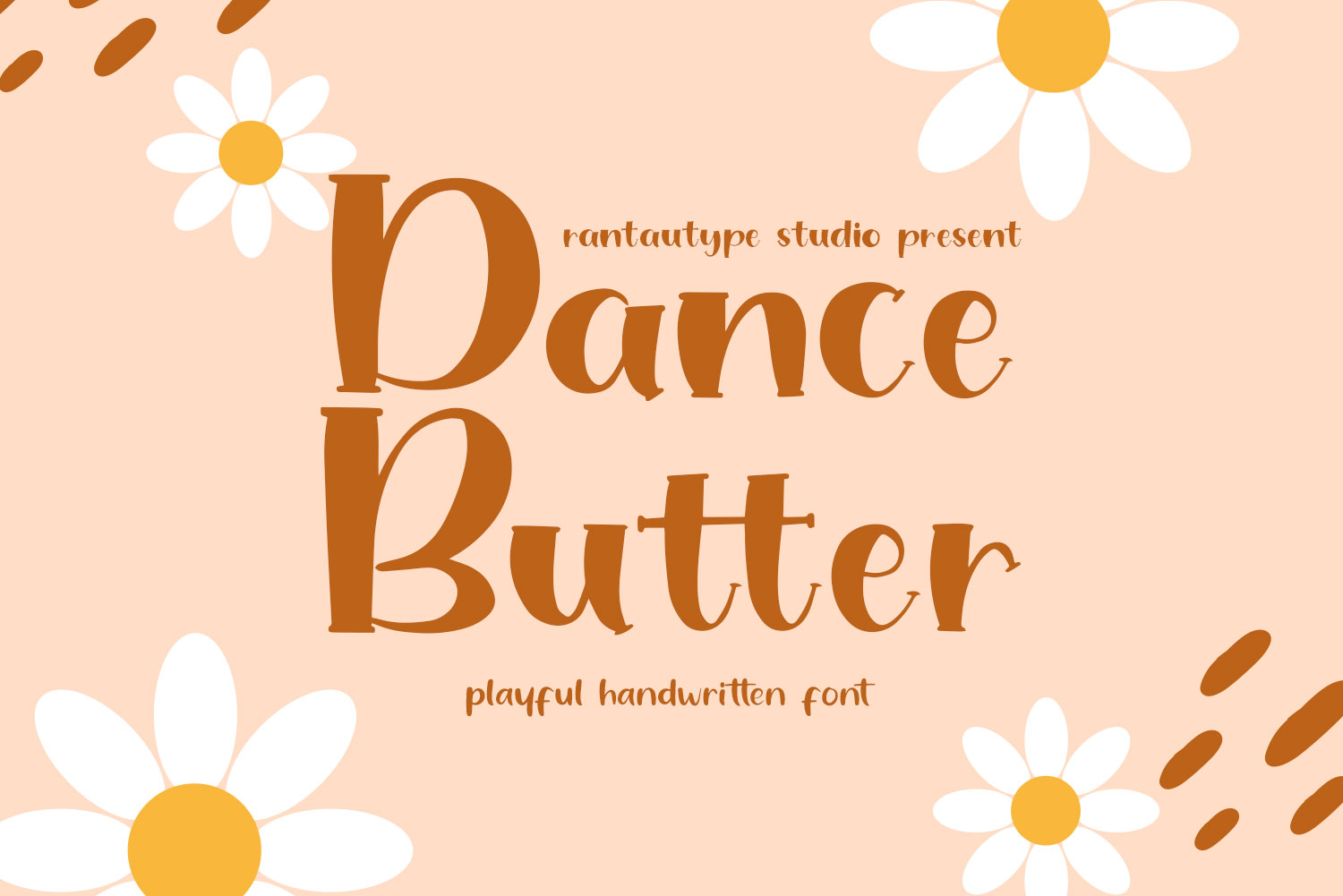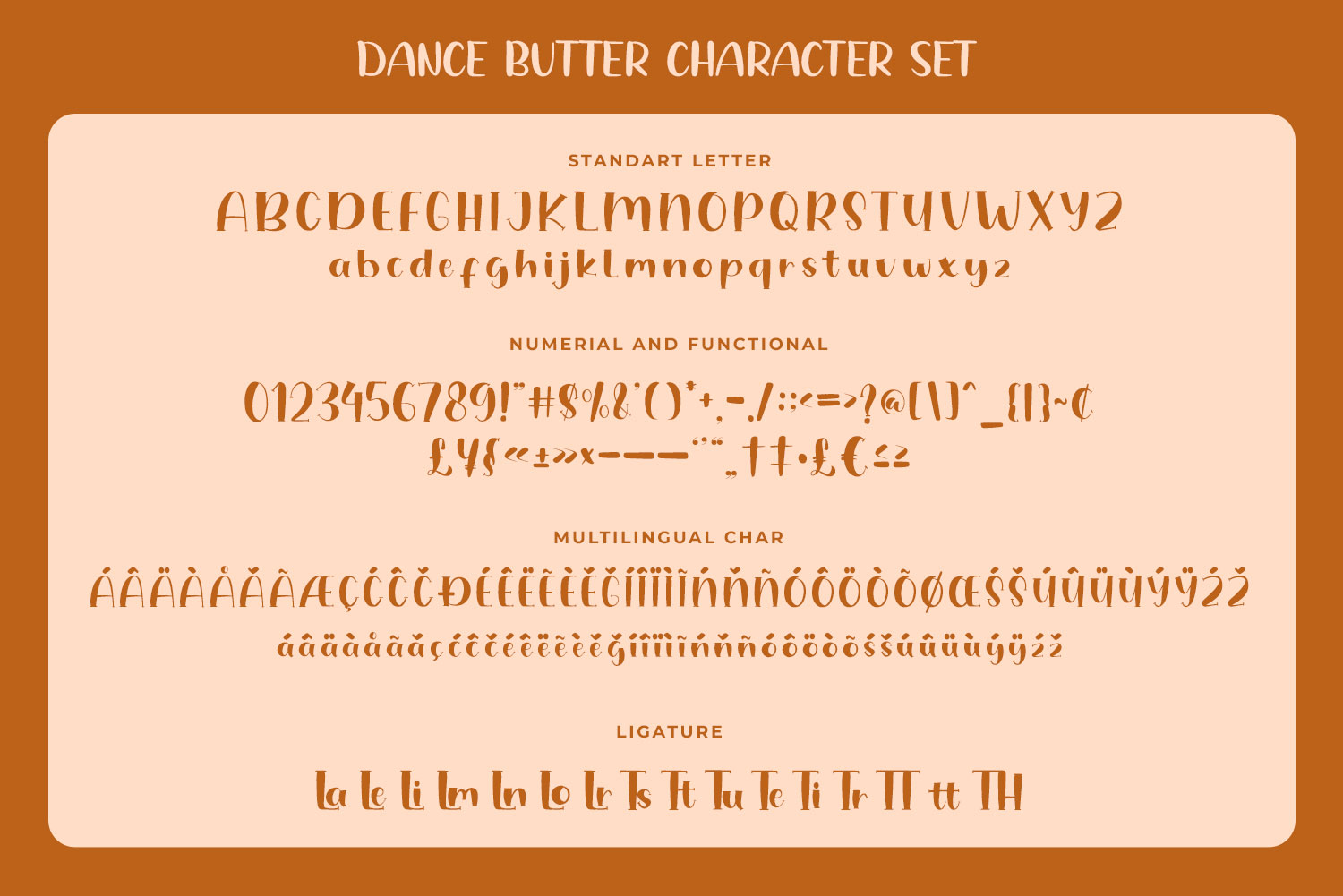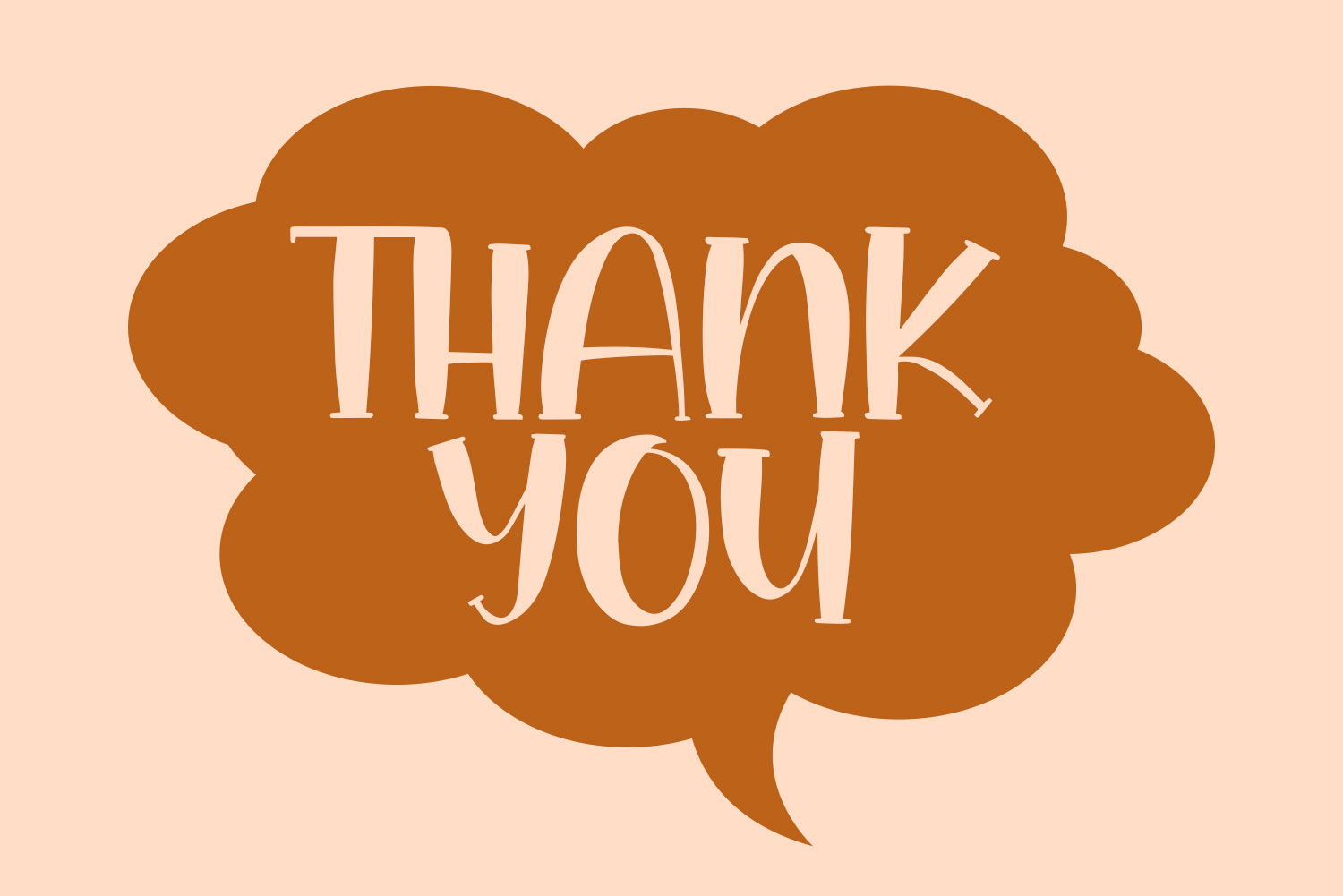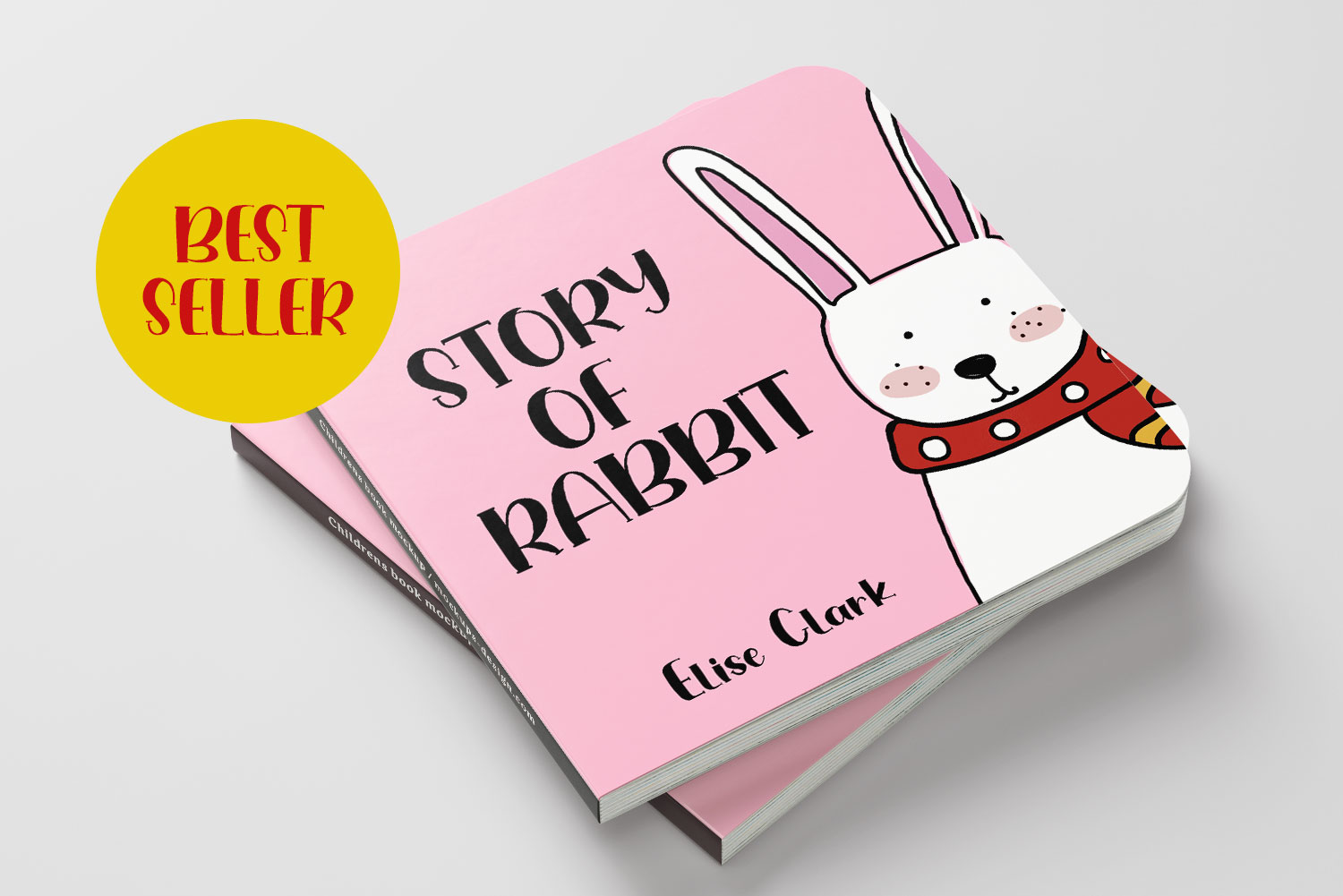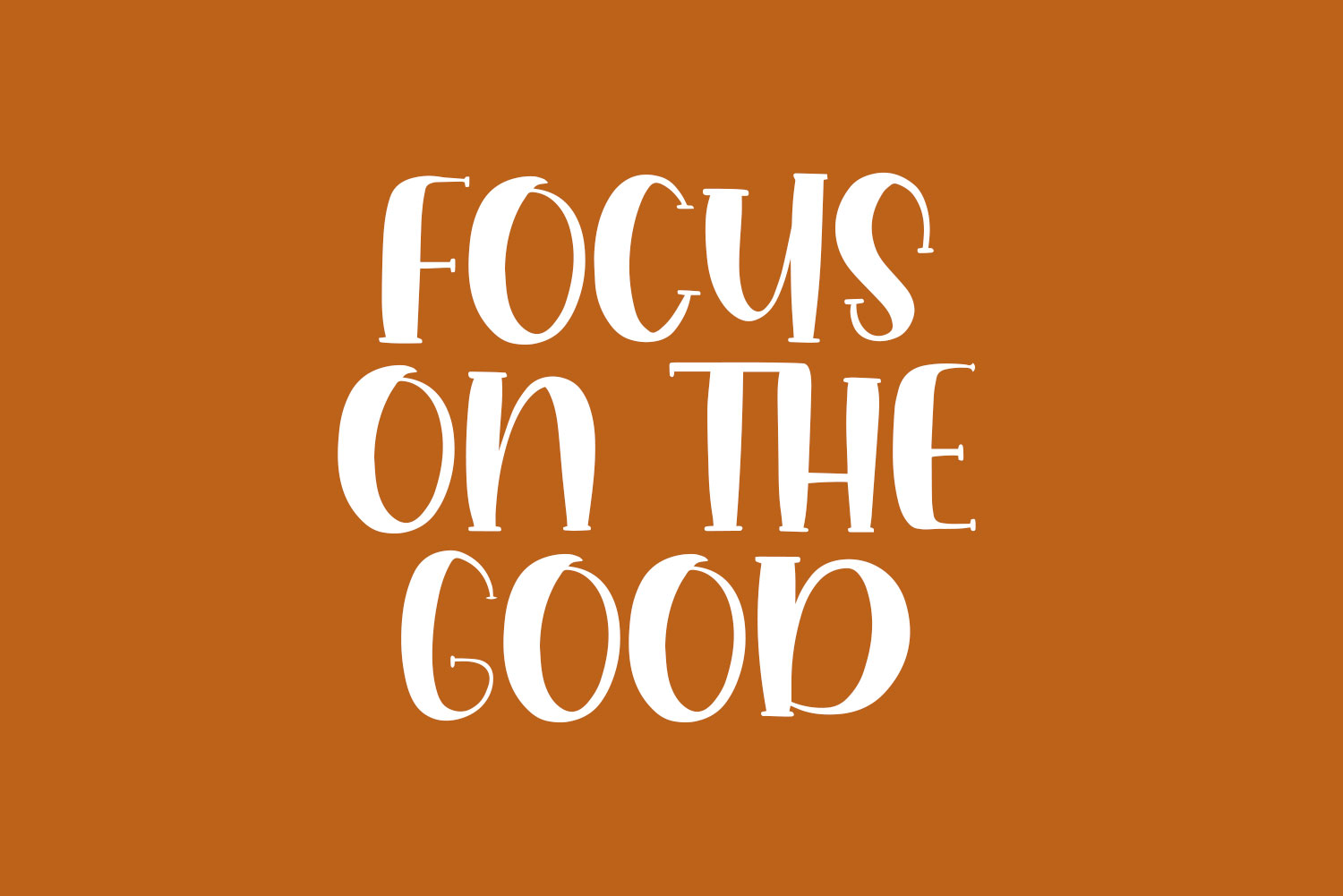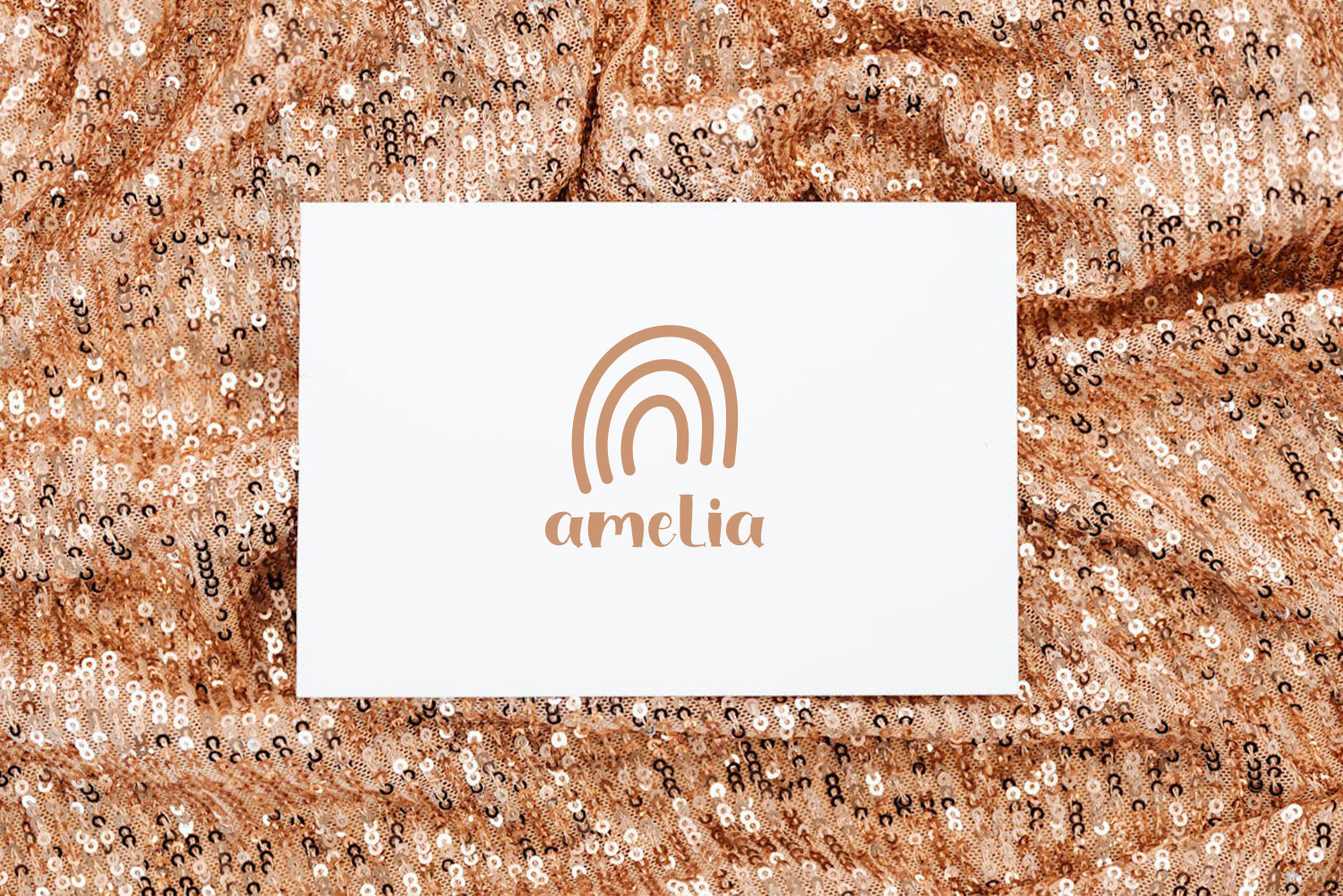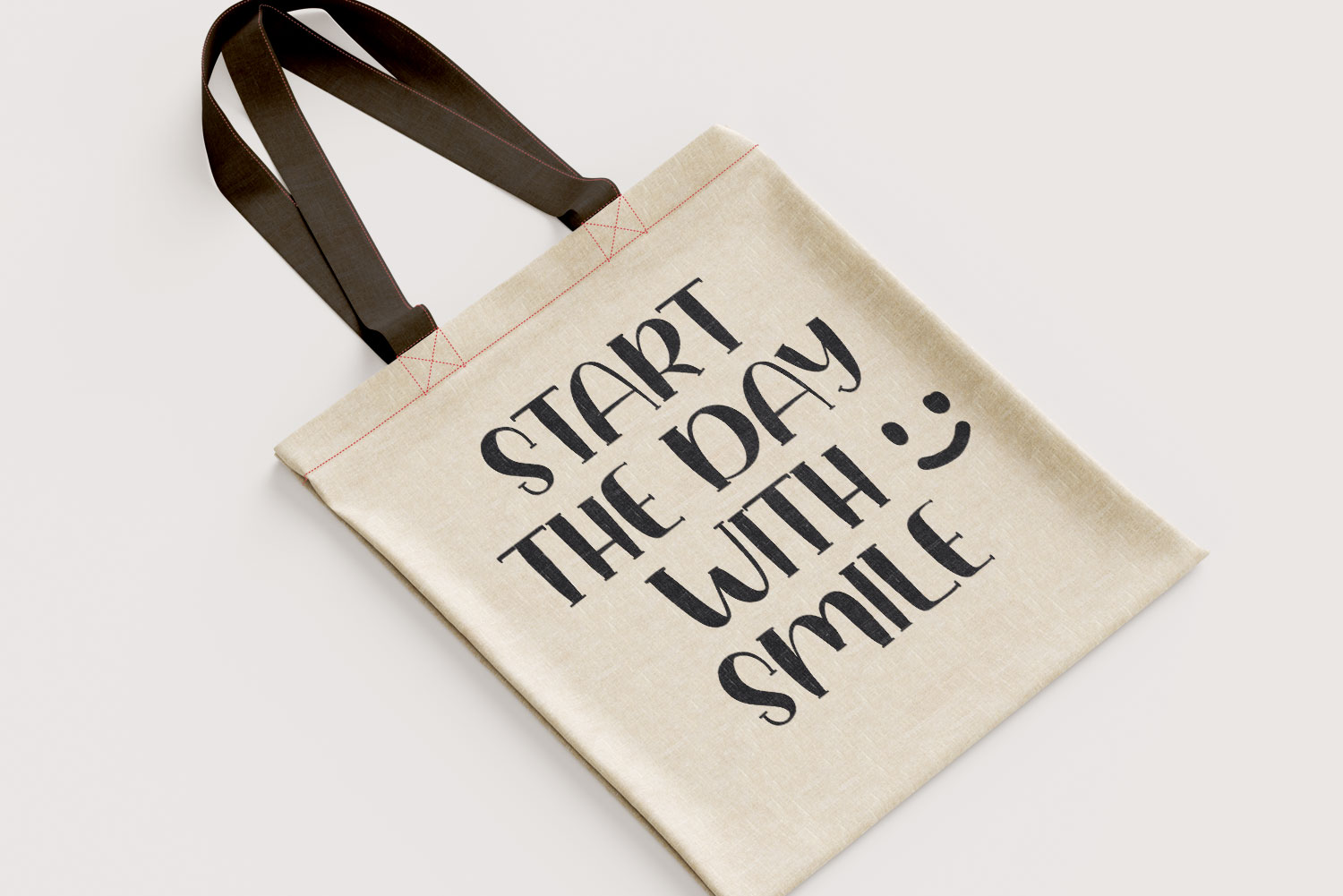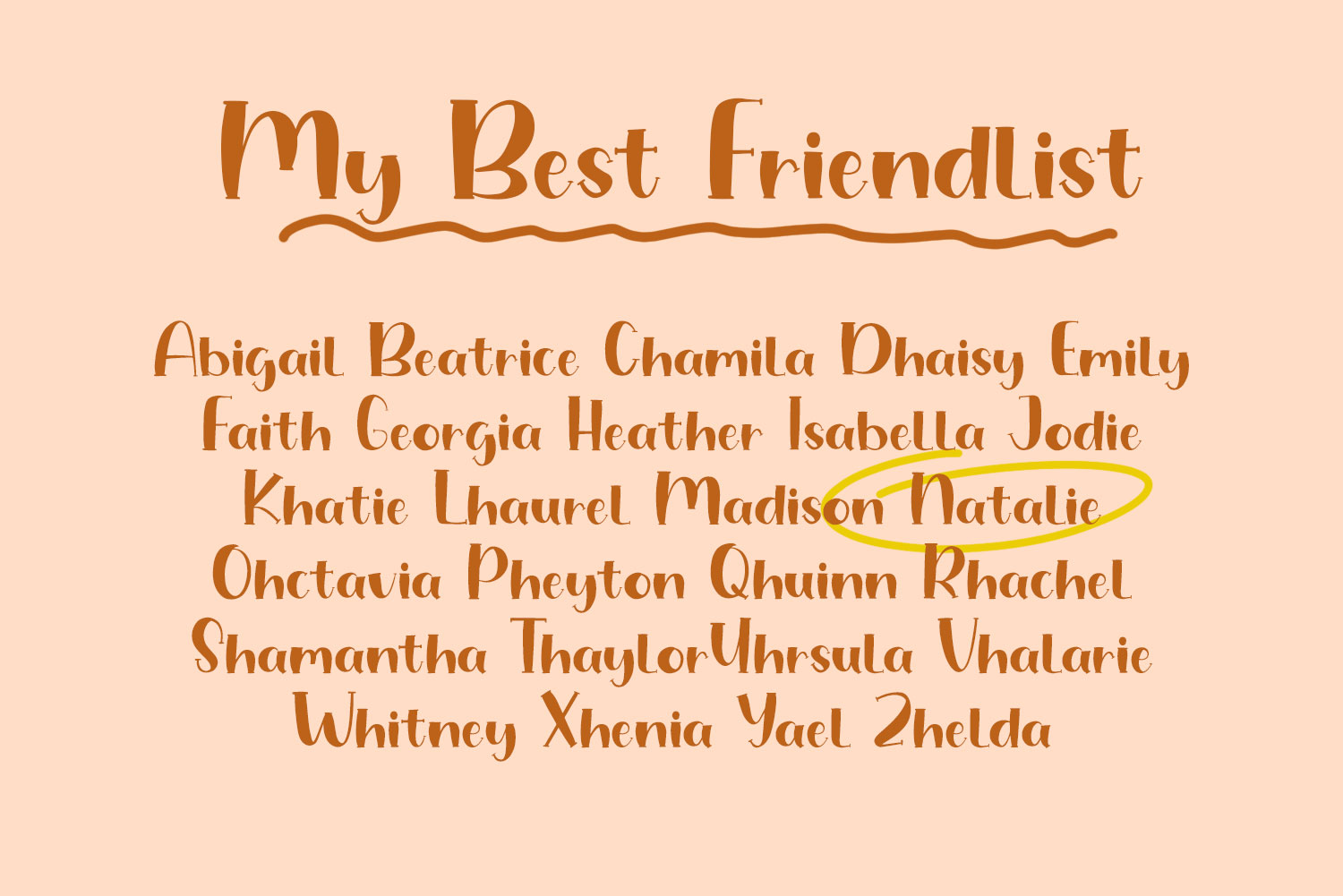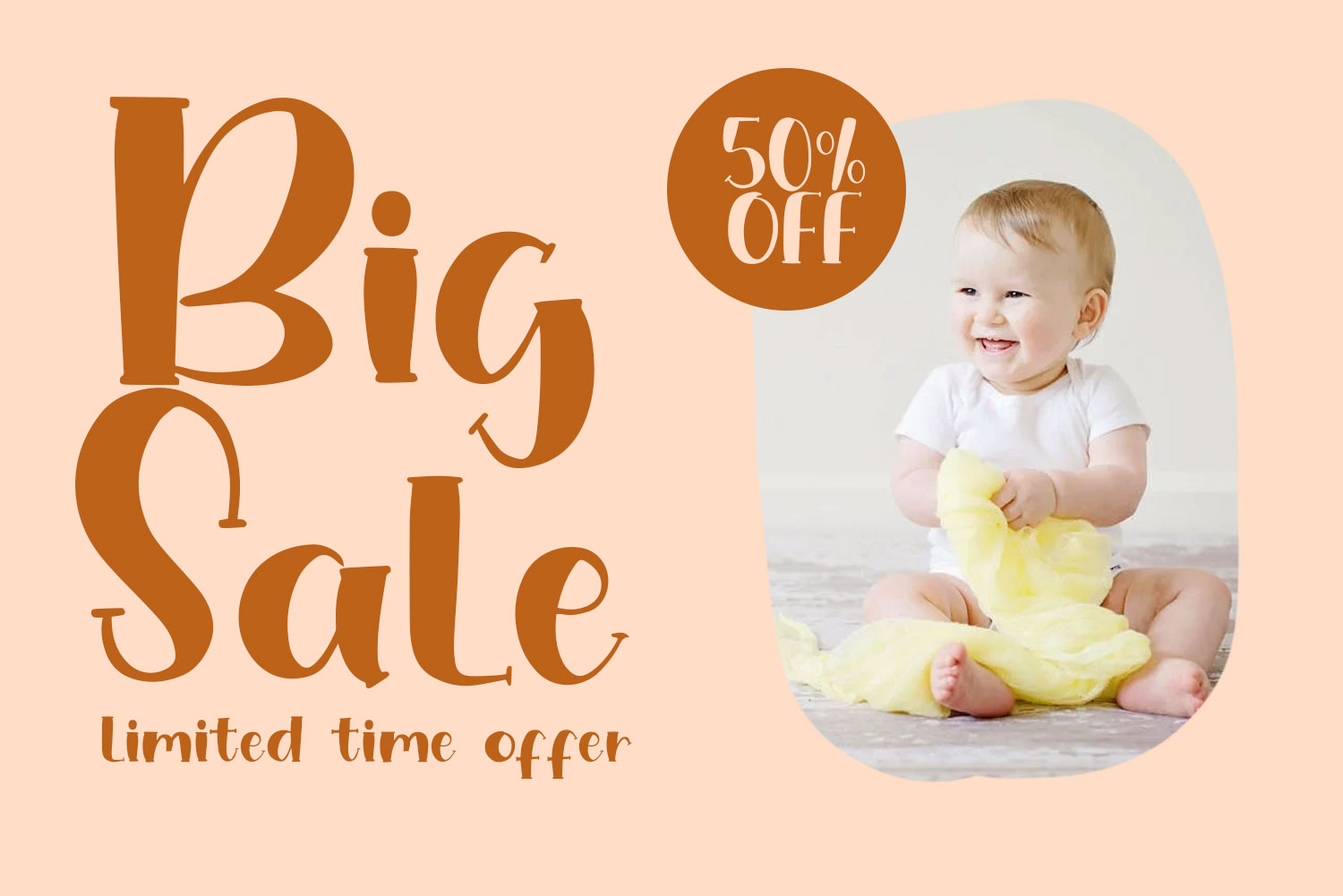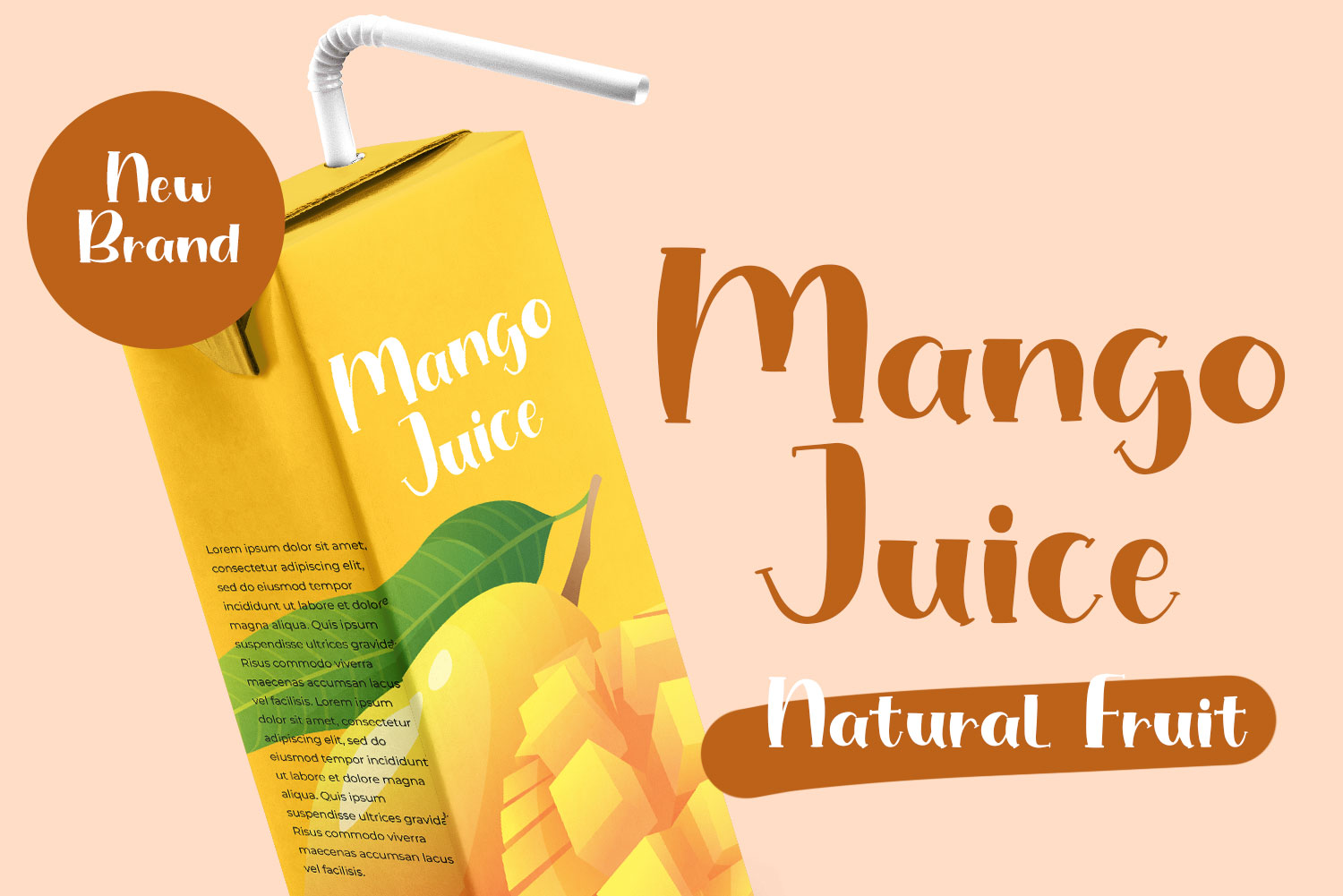
Dance Butter Playful Handwritten Font
Dance Butter is playful handwritten font which make fun visual experience in your project. Dance Butter help you to make special touch and lovely typography make you project more stand out.
Dance Butter is perfectly choice for any creative endeavor, such as logos, title, watermark on photography, cover, branding, display and magazine, wedding event, corporate brand, quotes, album cover, business card, business project and many other design project with playful taste.